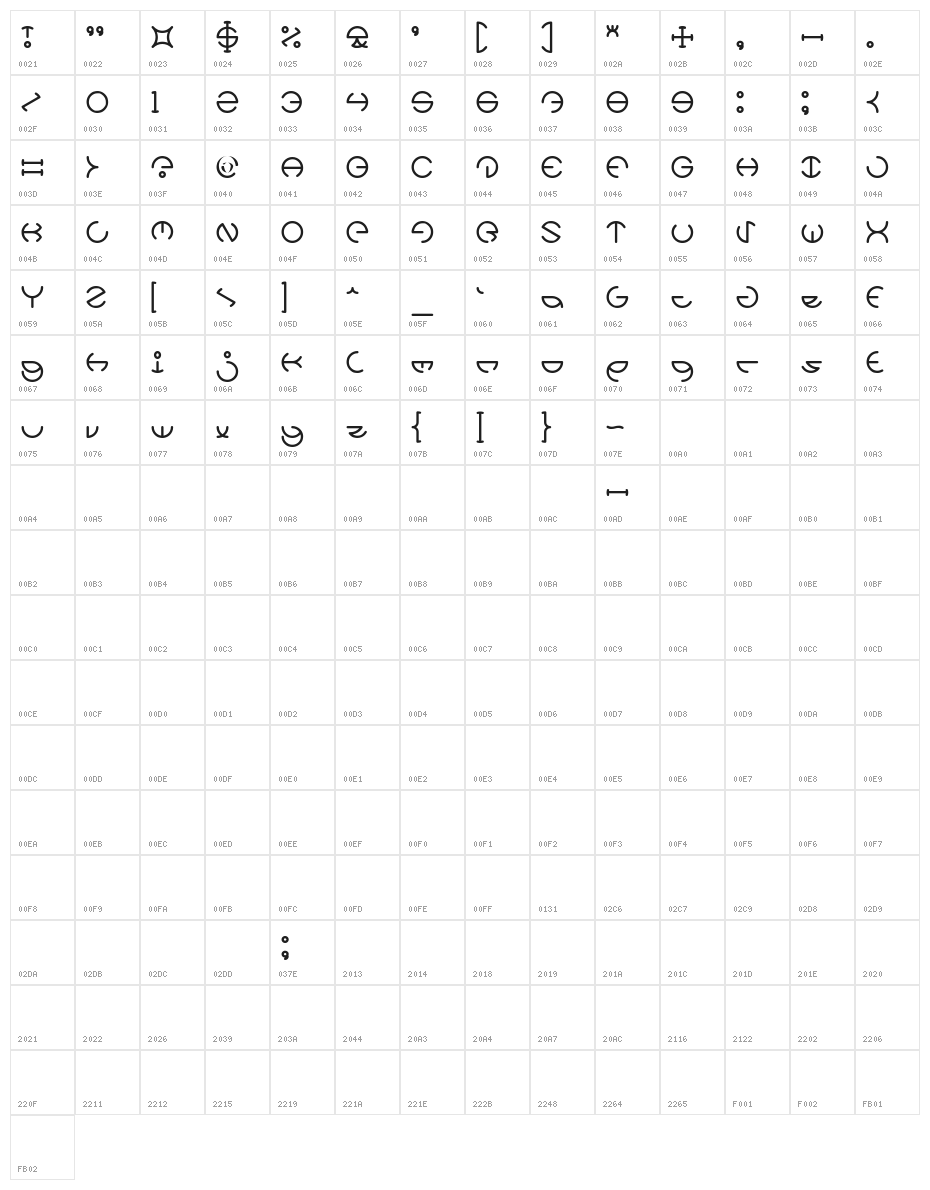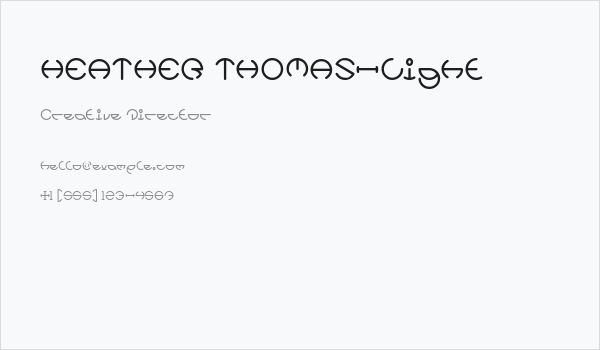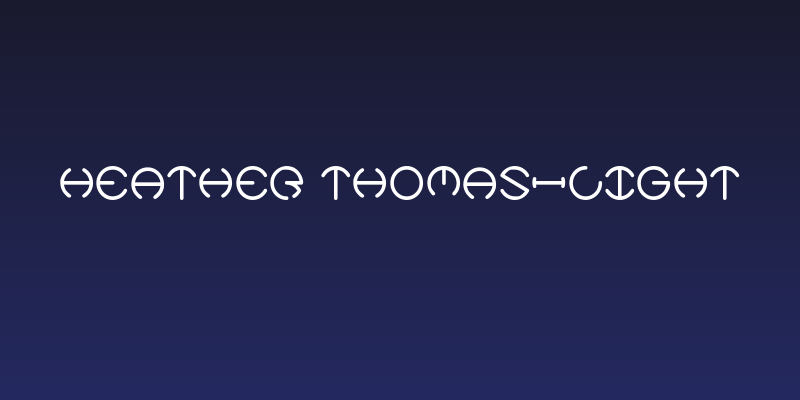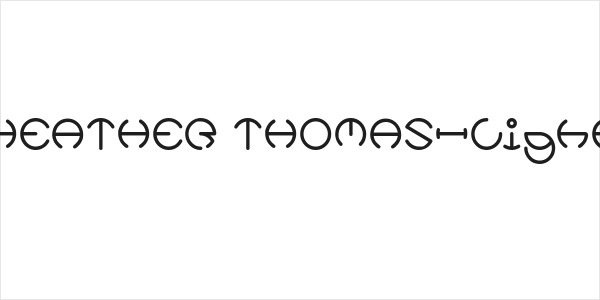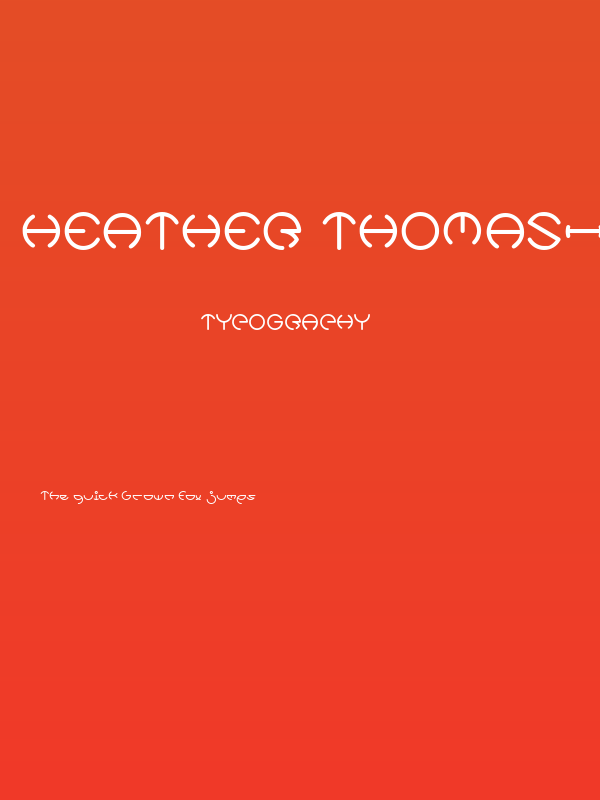
HEATHER THOMAS-Light Font
HEATHER THOMAS-Light Description
This font features a unique and futuristic design with circular and geometric elements. Each character is crafted with a consistent stroke width, creating a harmonious and balanced appearance. The letters have a distinct, almost alien-like quality, with curves and lines that suggest a modern and innovative style. The font maintains a playful yet sophisticated look, making it suitable for creative and artistic projects. Its distinctive style is further emphasized by the inclusion of special characters that complement the overall aesthetic.
| Proposed Projects | Ideal for sci-fi themed designs, modern branding, innovative product packaging, and creative digital artwork. |